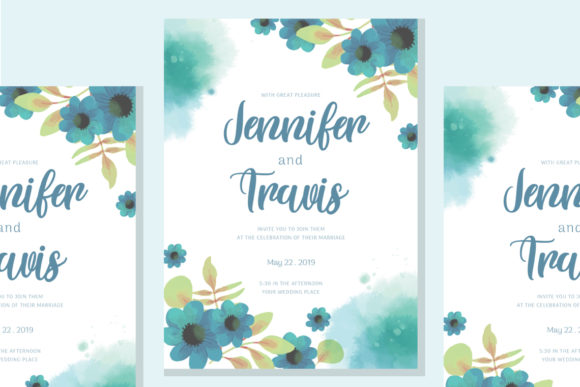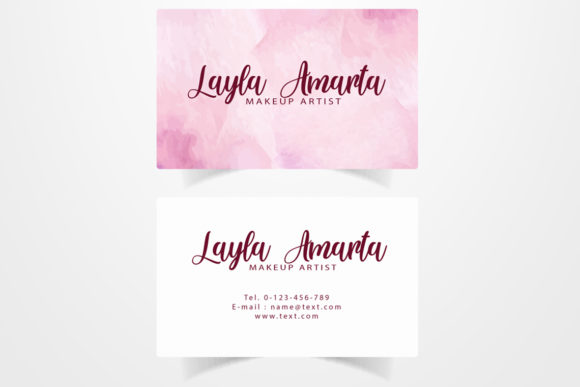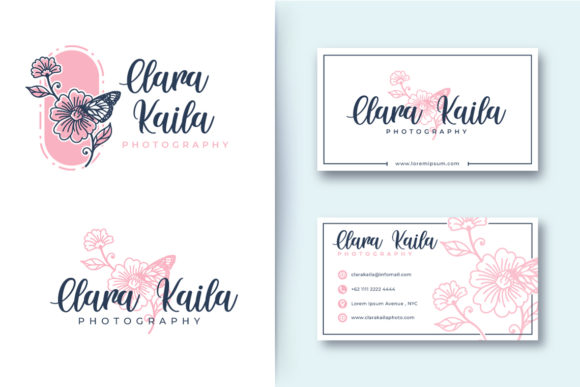
About Tails Mermaid Font
Tails Mermaid is cute and lovely, but also fancy. This versatile script font has a wide range of applications ranging from greeting cards to headlines and is guaranteed to add a romantic touch to your next design.